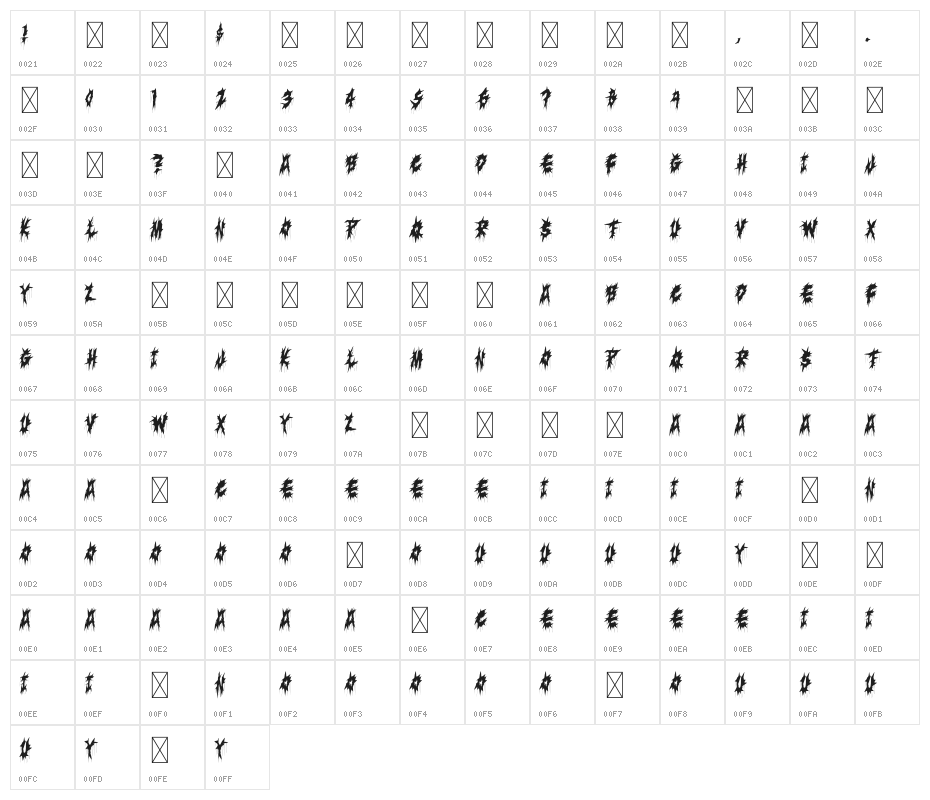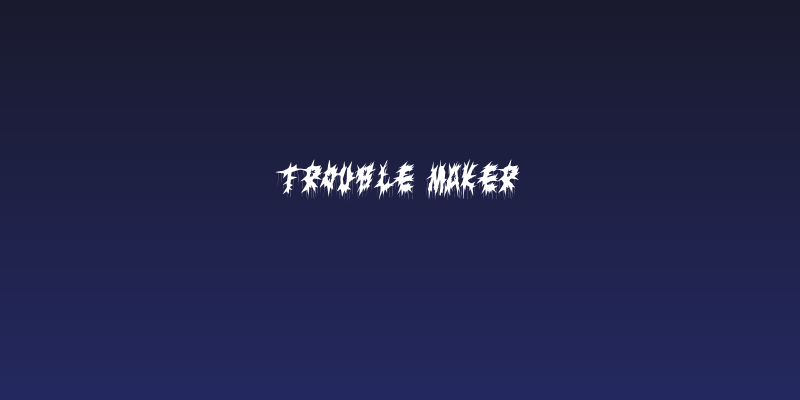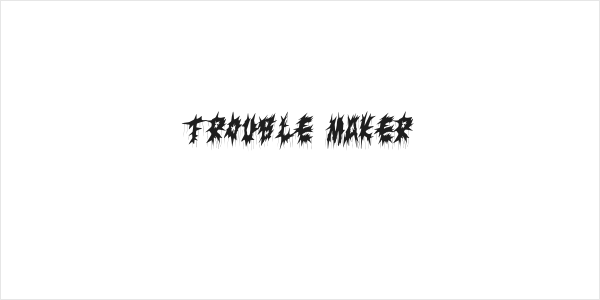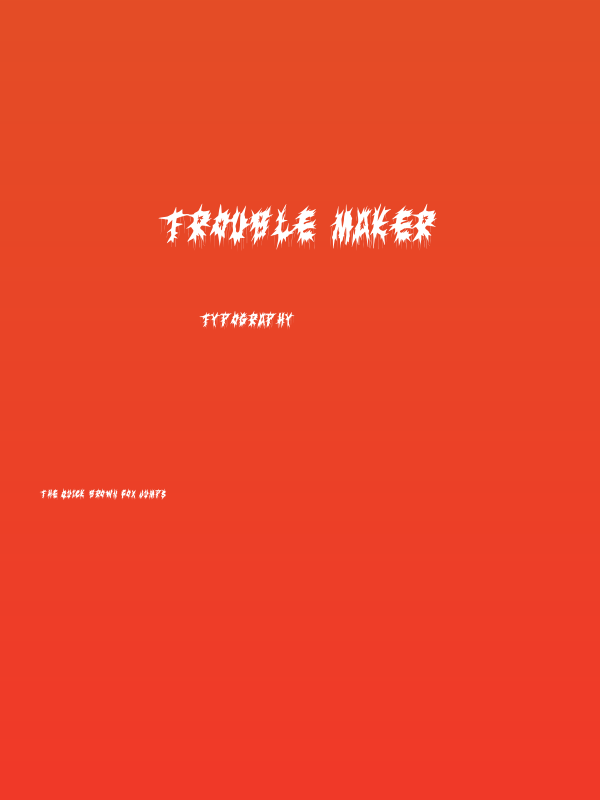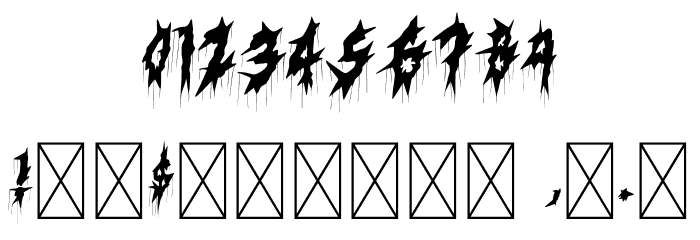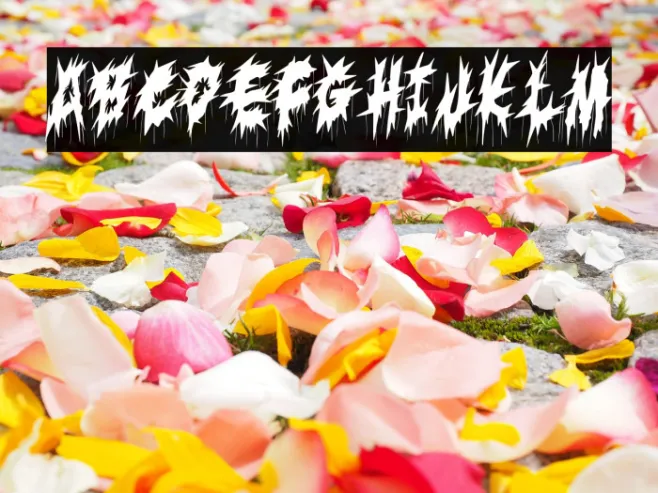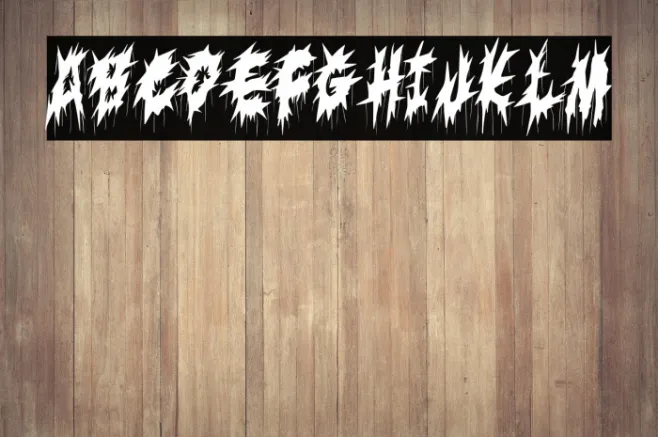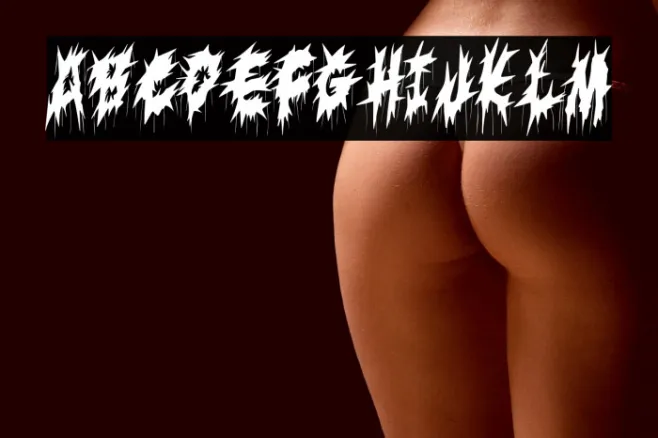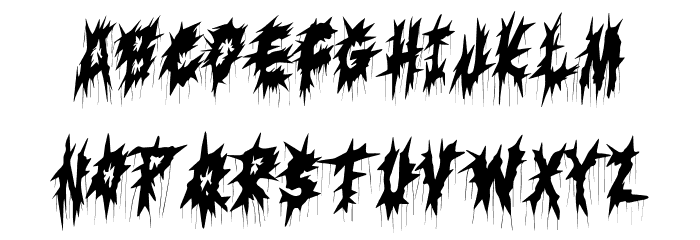
Trouble Maker Font
Trouble Maker Description
This font features a bold and jagged design, reminiscent of sharp, thorny edges. Each character appears as if it's been carved out with a rough, aggressive style, giving it a rebellious and edgy appearance. The strokes are uneven, with dramatic spikes and angles that create a sense of movement and intensity. This font is highly decorative, making it stand out with its unique and eye-catching design. It is suitable for projects that require a strong visual impact, such as posters, album covers, or any creative work that seeks to convey a sense of danger or excitement.
| Proposed Projects | Ideal for posters, album covers, and creative projects needing a rebellious edge. |